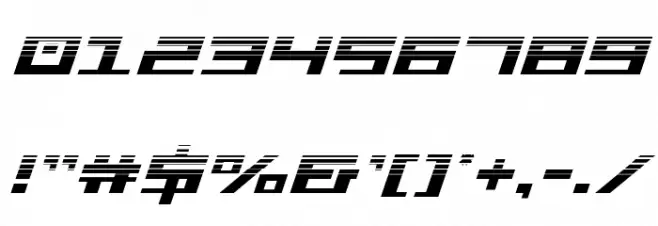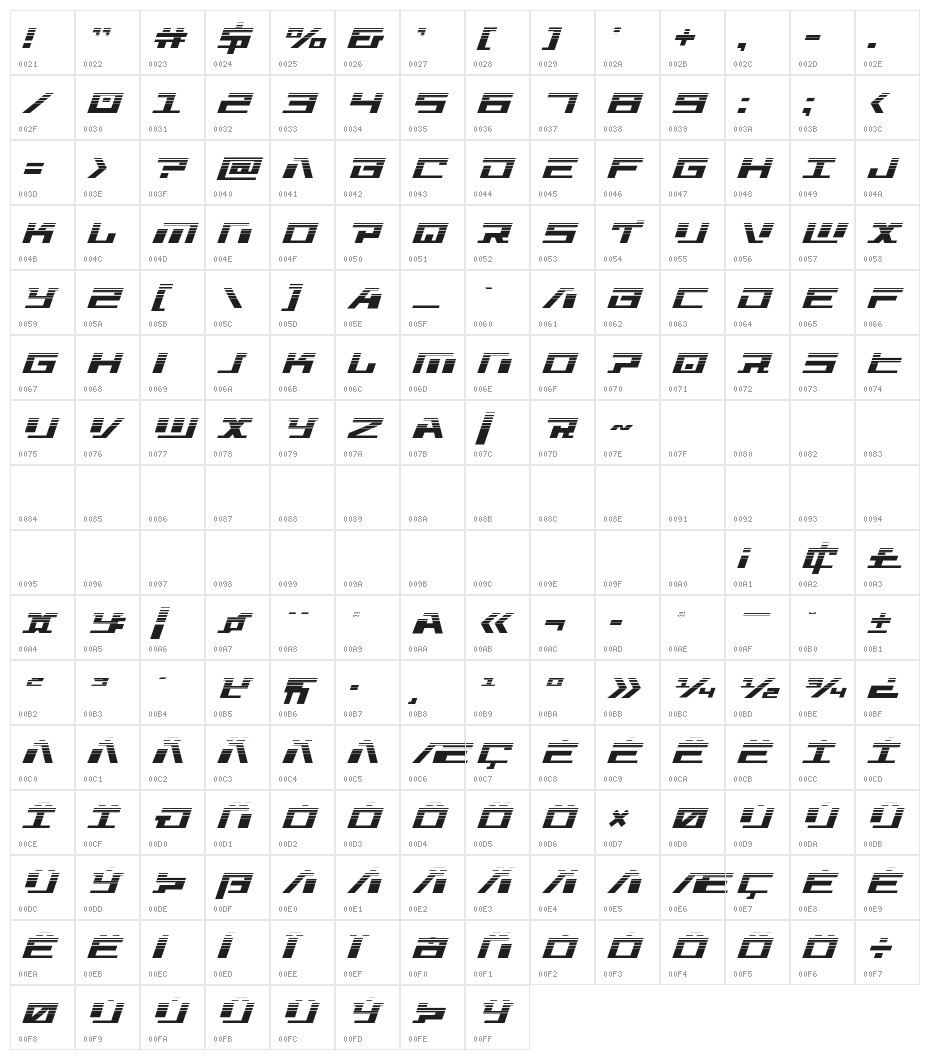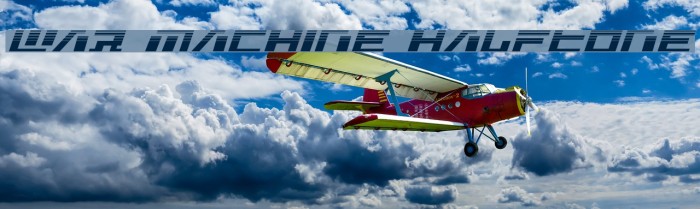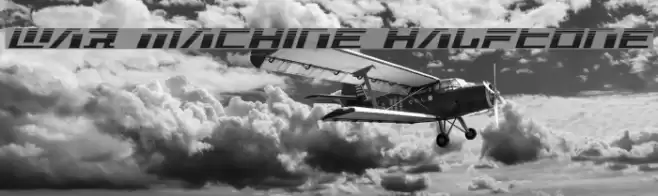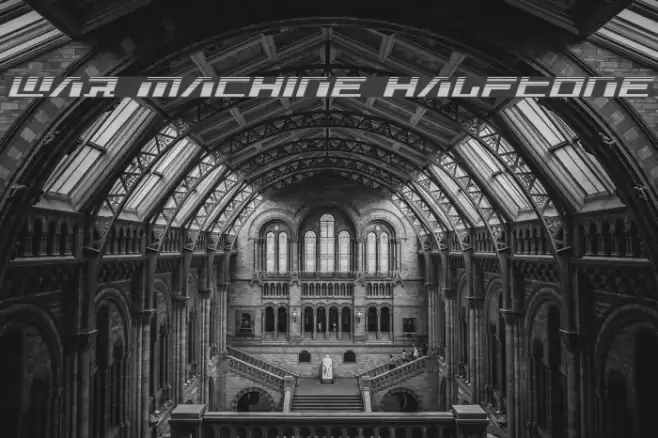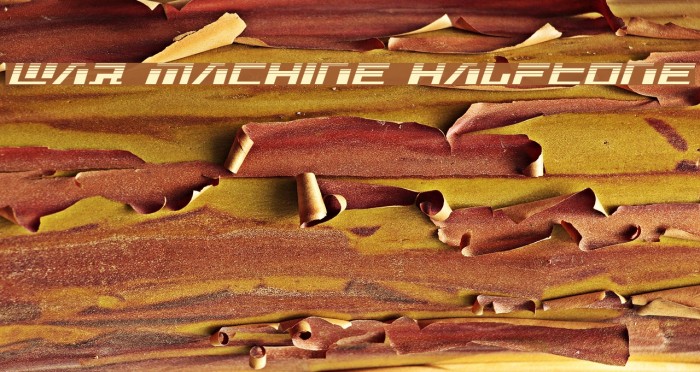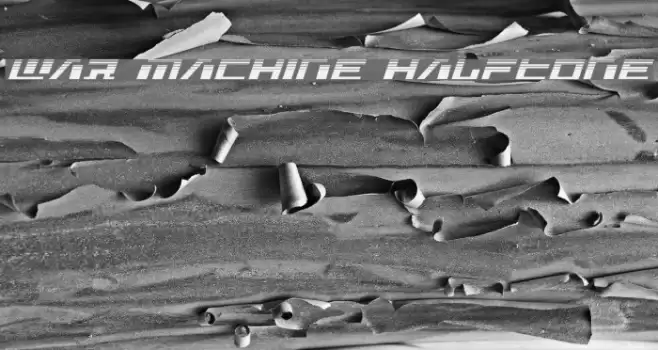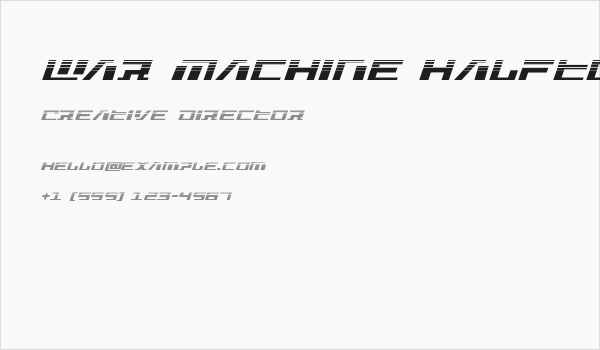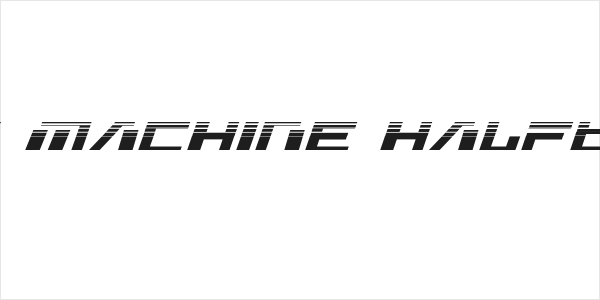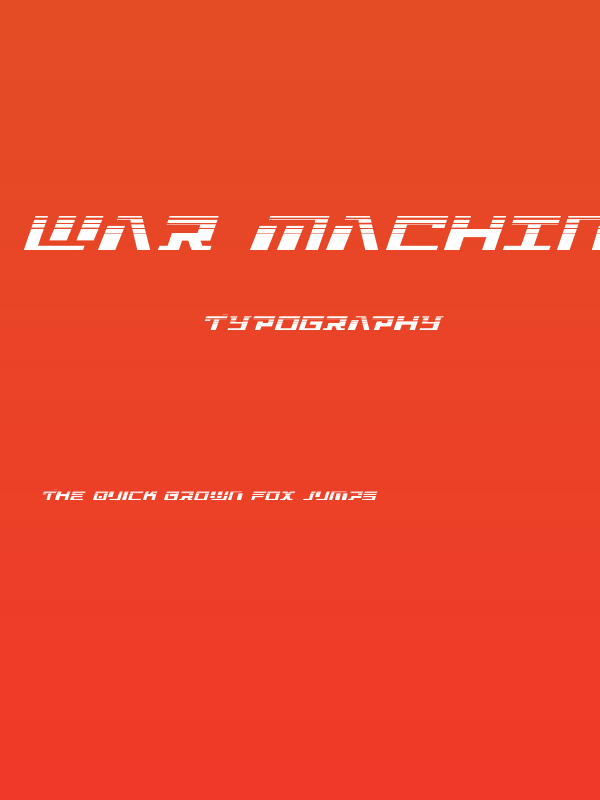
War Machine Halftone Font
War Machine Halftone Description
This font features a bold, futuristic design with a distinct halftone effect that gives it a dynamic and mechanical appearance. The characters are constructed with sharp angles and a consistent horizontal stripe pattern, creating a sense of movement and energy. The uppercase and lowercase letters maintain a uniform style, with the lowercase being slightly more compact. Numbers and special characters follow the same design principles, ensuring a cohesive look across all glyphs. The font's unique style makes it stand out, ideal for projects that require a modern, tech-inspired aesthetic.